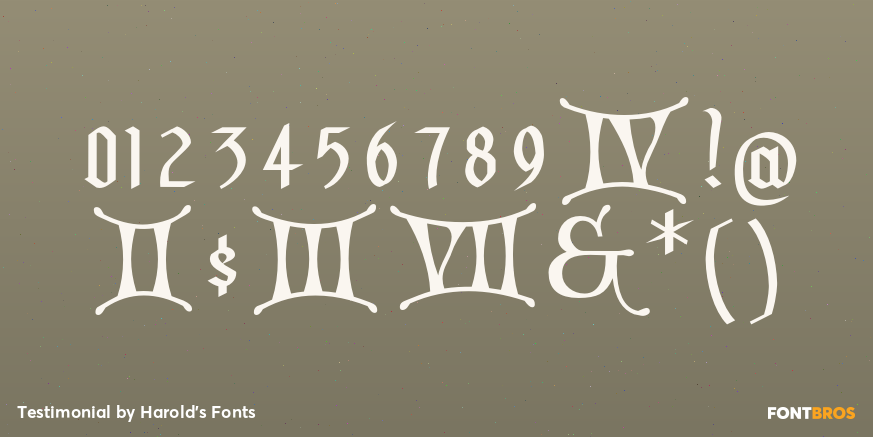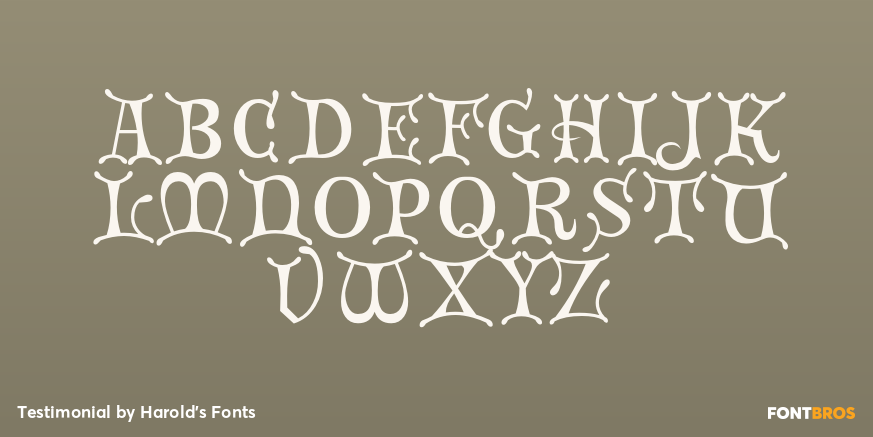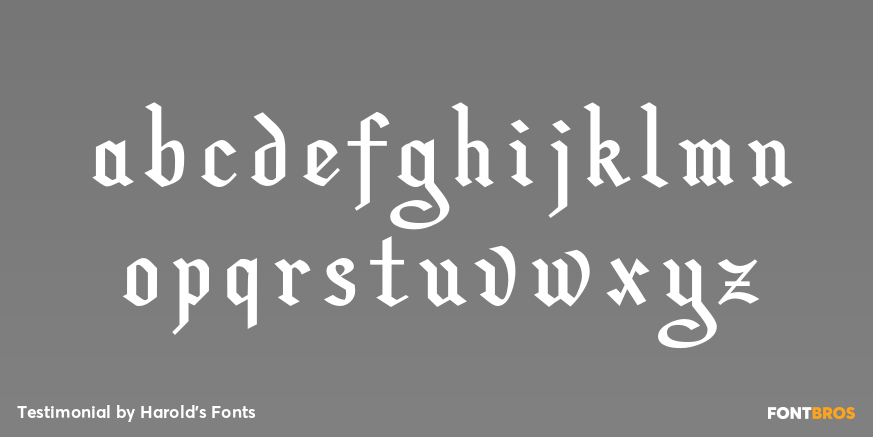
Testimonial
Font Family by Harold's Fonts
TESTIMONIAL is a decorative that combines aspects of blackletter (especially the lowercase) and versal caps, giving an effect that could range from an official proclamation to a Christmas card. It was inspired by the hand-lettered titles of the classic 1946 holiday film "It's a Wonderful Life (directed by Frank Capra, art direction by Jack Okey.)